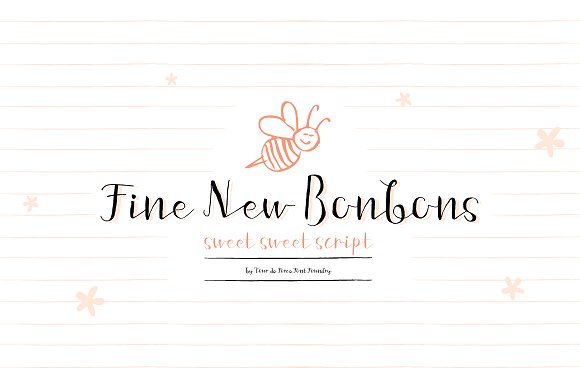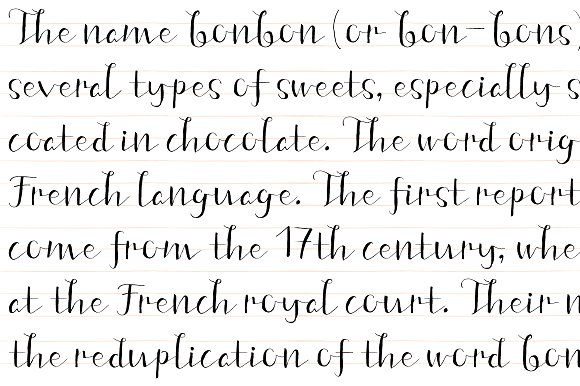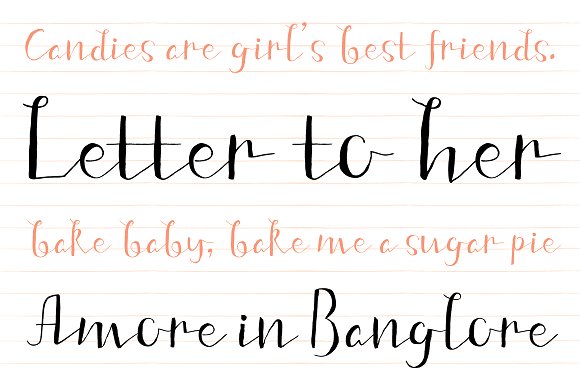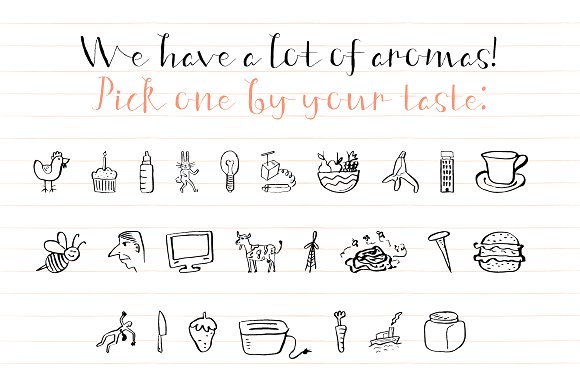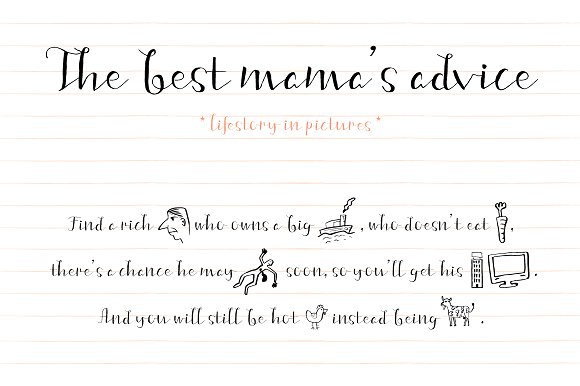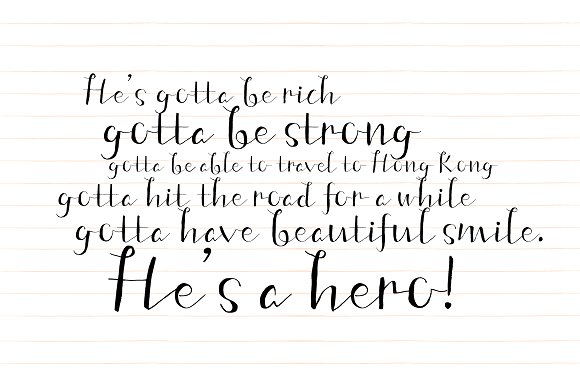
HomeScript FontsFine New Bonbons Font Script Fonts Fine New Bonbons Font FacebookXPinterestWhatsApp Fine New Bonbons Font Poster 2 Fine New Bonbons Font Poster 3 Fine New Bonbons Font Poster 4 Fine New Bonbons Font Poster 5 Fine New Bonbons Font Poster 6 Fine New Bonbons Font Poster 7 About Fine New Bonbons Font High contrasted script family with a pack of dingbats. DOWNLOAD ON CREATIVE FABRICAThis font is sold and delivered by Creative Fabrica. Font Canyon may earn a commission if you buy through this link. People also explored Claw White Tiger Font Metalurdo Font Secret Holiday Font Buonanotte Font Barbeque Font Asphalt Bella Canvas 3001 Mockup T Shirt Monday Dance Font Hacenda Font Pierrce Font 370 0 TagsFine New Bonbons Font Previous articleLunatino FontNext articleDusan Script Font LEAVE A REPLY Cancel reply Comment: Please enter your comment! Name:* Please enter your name here Email:* You have entered an incorrect email address! Please enter your email address here Website: Save my name, email, and website in this browser for the next time I comment. Personal Use Free Nuku Nuku Personal Use Free Read more about this font Aelten Personal Use Free Read more about this font Kanza Personal Use Free Read more about this font Masha Song Personal Use Free Read more about this font BLOG 5 Fonts That Will Dominate Design Trends in 2026 5 Fonts for 2026 That Will Dominate Design Trends Typography plays a critical role in visual communication, and as we look ahead to 2026, itβs... Top 7 Google Fonts Alternatives for Faster and Privacy-Friendly Web Design (2025) Where to Buy American Fonts Online in 2024 Elegant Wedding Invitation Fonts β Handwritten & Script Fonts